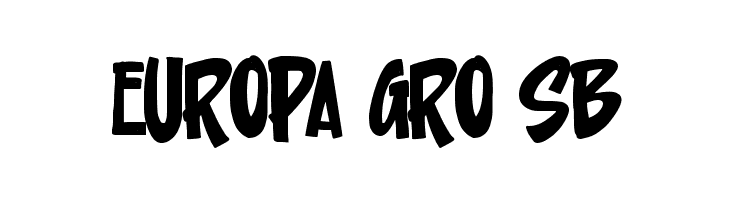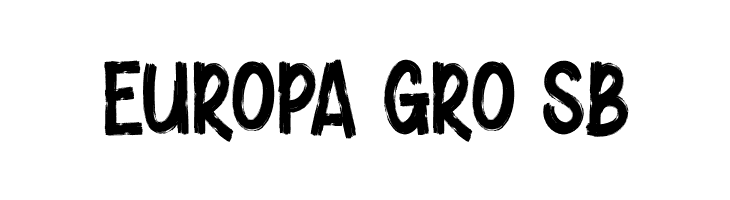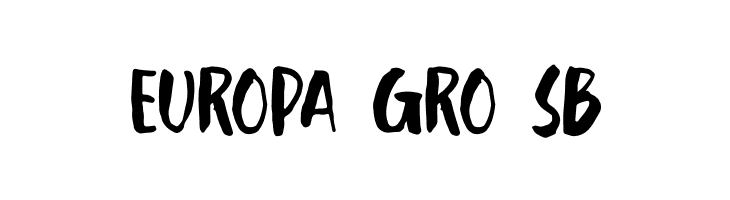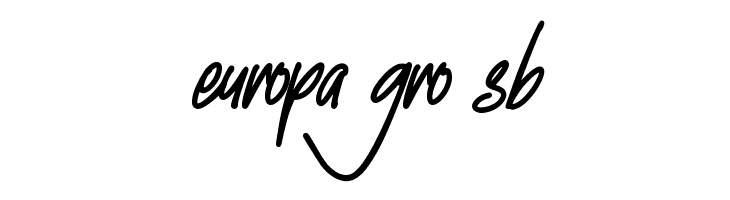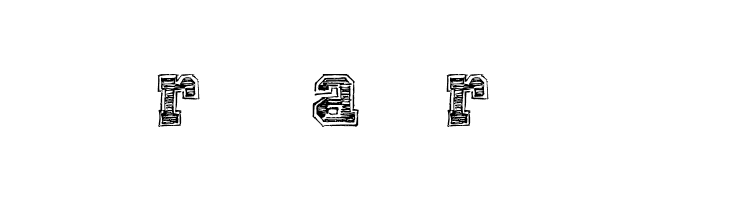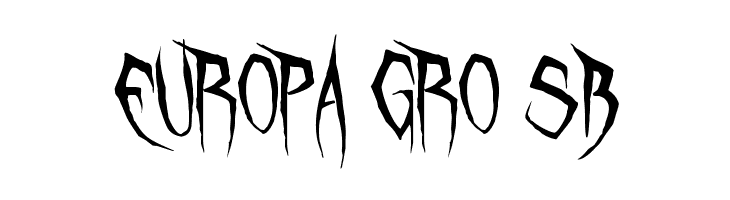
A bold, decorative font with a hand-drawn, vintage collegiate style.
A bold, decorative font with a distressed, vintage appearance.
A bold, handwritten font with a playful, brush-like texture.
A bold, expressive handwritten font with a modern, dynamic style.
A jagged, eerie font with sharp edges and a gothic, hand-drawn style.
A bold, hand-drawn font with a textured, brush-like appearance.
A bold, playful handwritten font with a casual and friendly style.
A bold, hand-drawn font with a dynamic, graffiti-inspired style.